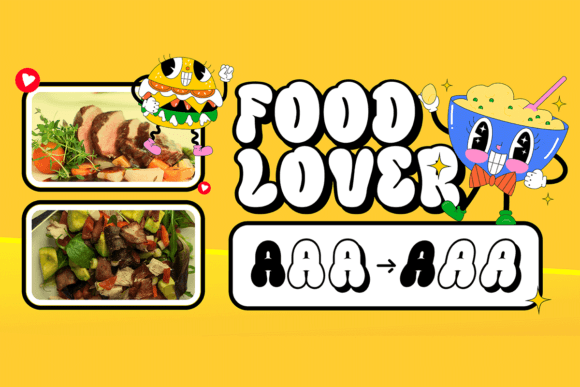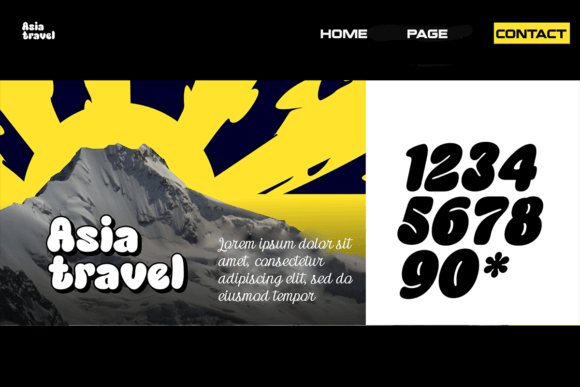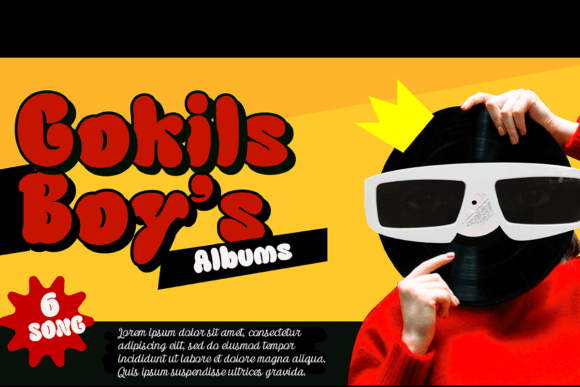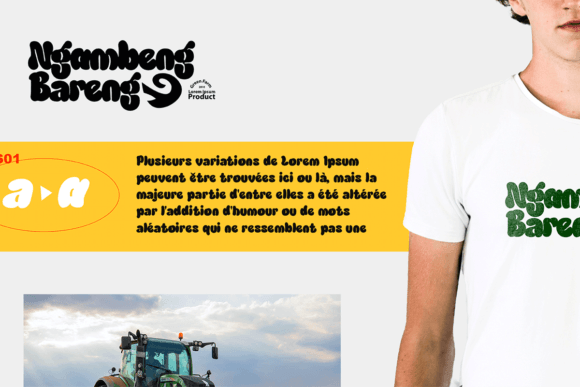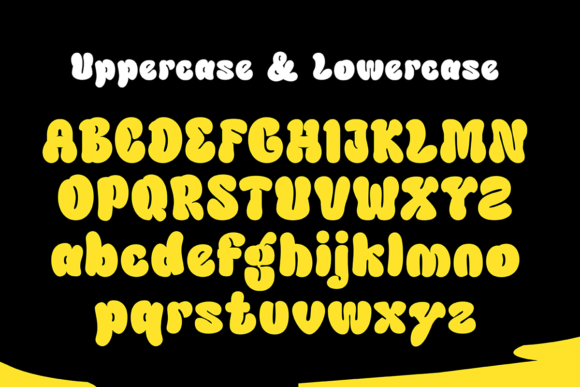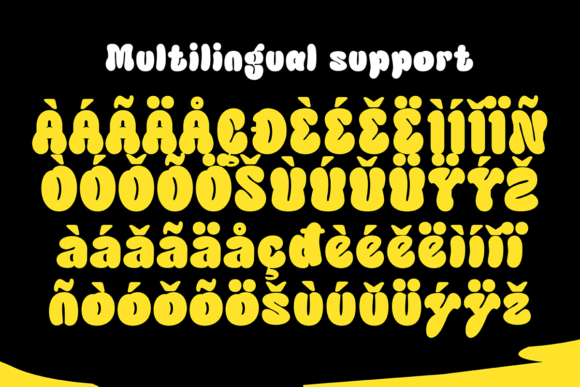
Introducing Blagbag Font: The Urban Graffiti Style to Elevate Your Designs
In the world of design, fonts play a crucial role in conveying the message and aesthetic of a project. For designers and crafters looking for a unique and eye-catching font to make their work stand out, Blagbag Font is an excellent choice. This urban graffiti font with soft edges is perfect for a variety of design projects, from music posters and titles to branding projects, logos, advertisements, and more.
What is Blagbag Font?
Blagbag Font is a distinctive urban graffiti font that boasts soft edges, giving it a smooth and modern look. Its unique style is inspired by the streets, making it ideal for designers who want to add an edgy touch to their projects. Whether you’re working on a music poster, a branding project, or an advertisement, Blagbag Font is sure to grab attention.
Key Features of Blagbag Font
- 6 Style Variations: Blagbag Font comes with six different style variations that can be combined with one another. This feature allows designers to experiment with different looks and create a unique visual identity for their projects.
- Soft Edges: The soft edges of Blagbag Font give it a distinctive look that sets it apart from other graffiti fonts. This feature makes it perfect for designers who want to add a touch of modernity to their work.
- Versatility: Blagbag Font is incredibly versatile and can be used for a wide range of design projects, including music posters, titles, branding projects, logos, advertisements, and more.
Why Choose Blagbag Font?
There are several reasons why designers and crafters should consider Blagbag Font for their next project:
- Unique Style: Blagbag Font offers a unique style that is sure to make your design projects stand out. Its urban graffiti look with soft edges is unlike any other font available.
Tips and Tricks for Using Blagbag Font
Here are some tips and tricks to help you get the most out of Blagbag Font:
- Experiment with Different Styles: Blagbag Font comes with six different style variations. Experiment with different combinations to create a unique look.
- Use it for Headlines: Blagbag Font is perfect for headlines and titles. Use it to grab attention and add a touch of modernity to your design.
- Pair it with Other Fonts: Blagbag Font can be paired with other fonts to create a unique visual identity. Experiment with different font combinations to find the perfect look.
Blagbag Font is an excellent choice for designers and crafters looking for a unique and eye-catching font to make their work stand out. Its urban graffiti style with soft edges is perfect for a variety of design projects, from music posters and titles to branding projects, logos, advertisements, and more. With its six style variations, ease of use, and high-quality design, Blagbag Font is sure to elevate your designs to the next level.